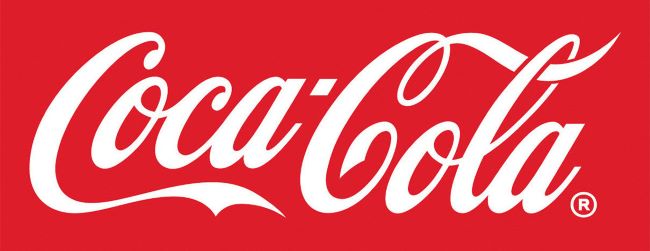
Coca Cola Font
Coca Cola Font is one of the most iconic and enduring typefaces in design history. Its flowing, elegant script instantly evokes feelings of nostalgia, warmth, and happiness—qualities that have become inseparable from the Coca Cola brand itself. The font’s charm lies in its timeless craftsmanship and the emotional connection it creates with people around the world.
The famous Coca Cola Font is based on Spencerian Script, a popular handwriting style from the 19th century. This elegant script gives the logo a handcrafted, human touch that perfectly captures the brand’s message of joy and togetherness.
Over the decades, this classic typography has remained virtually unchanged—a testament to the power of design consistency. Its enduring appeal continues to inspire designers worldwide.